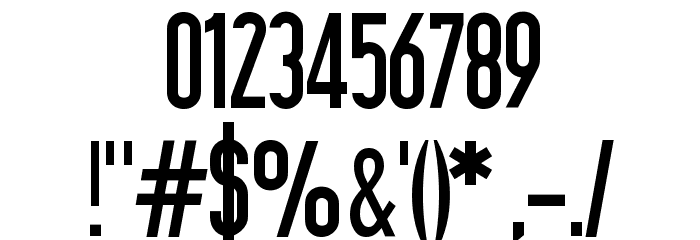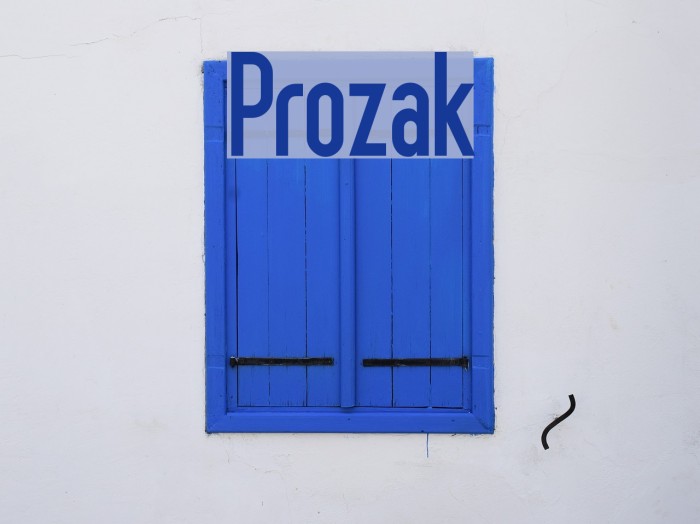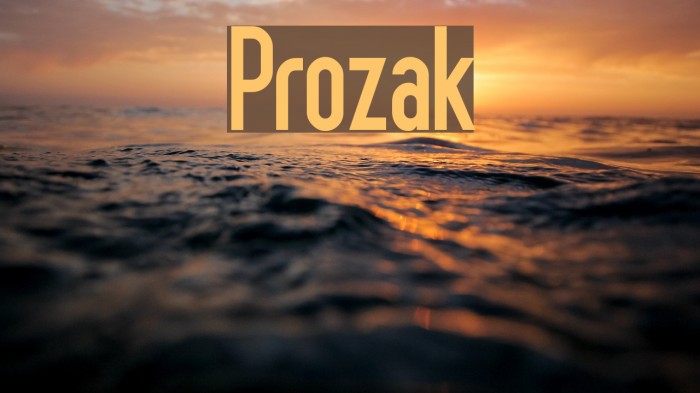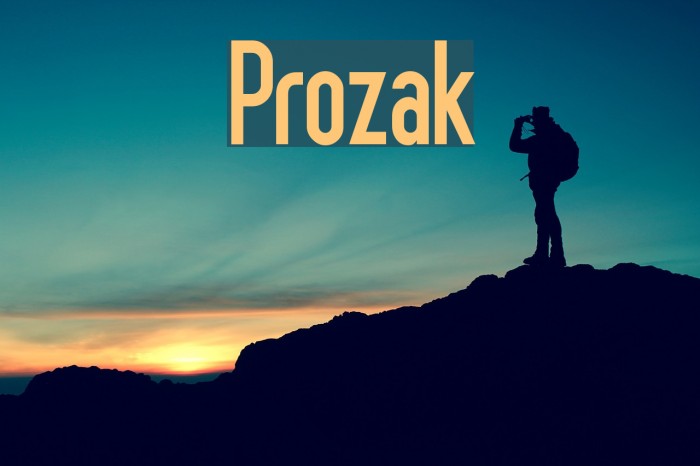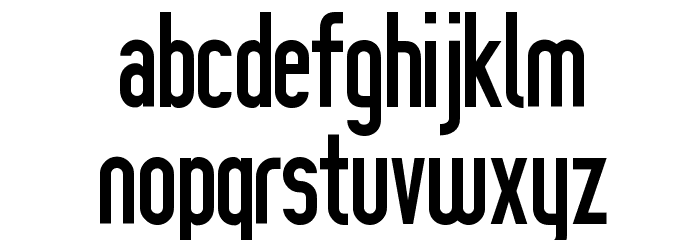
Prozak Font
Prozak Description
This font features a bold and modern design with a strong geometric structure. The characters are tall and narrow, giving it a condensed appearance. The uppercase and lowercase letters maintain a consistent width, contributing to a uniform look. The numbers are clear and legible, matching the style of the alphabet. Special characters are included, maintaining the same bold and structured aesthetic. The overall design is clean and contemporary, making it suitable for various modern applications.
A bold, modern, and condensed font with a geometric structure from Sans Serif fonts.
- Proposed Projects: Ideal for headlines, posters, branding, and advertising where a strong visual impact is needed.